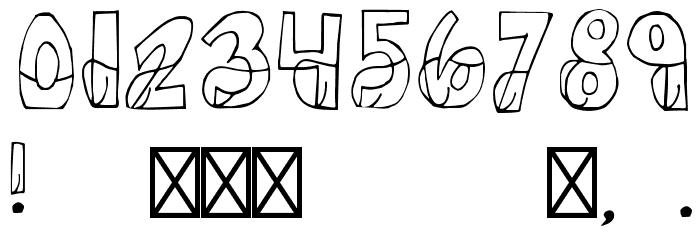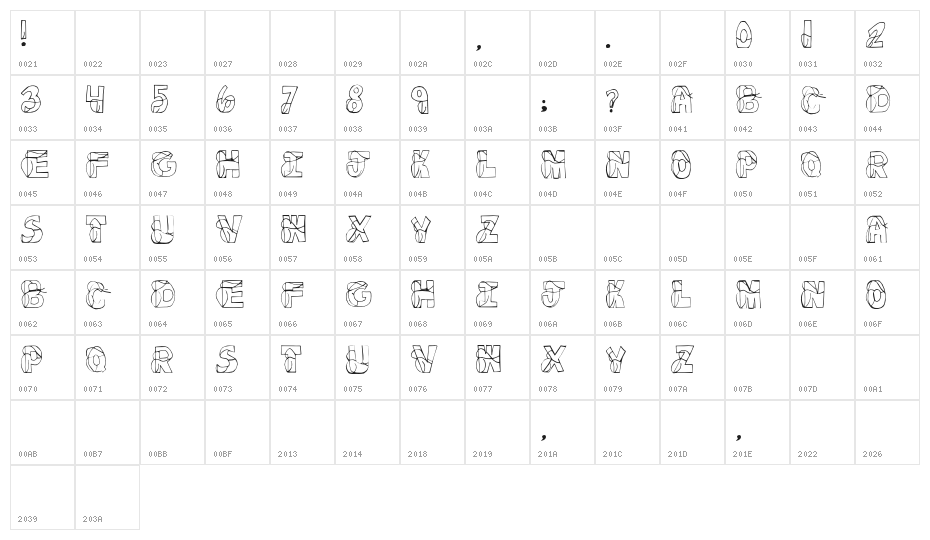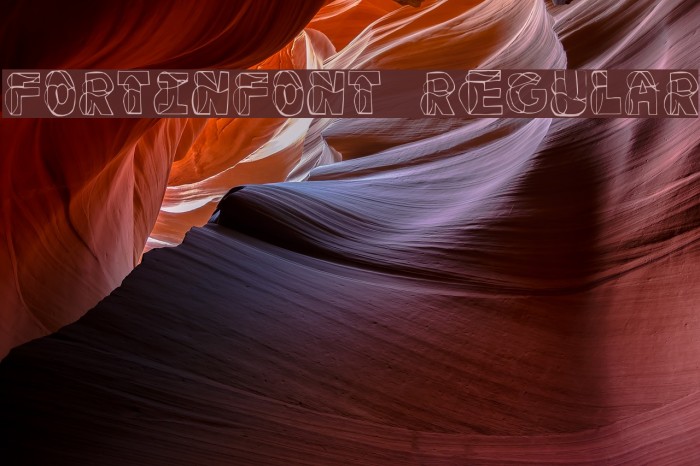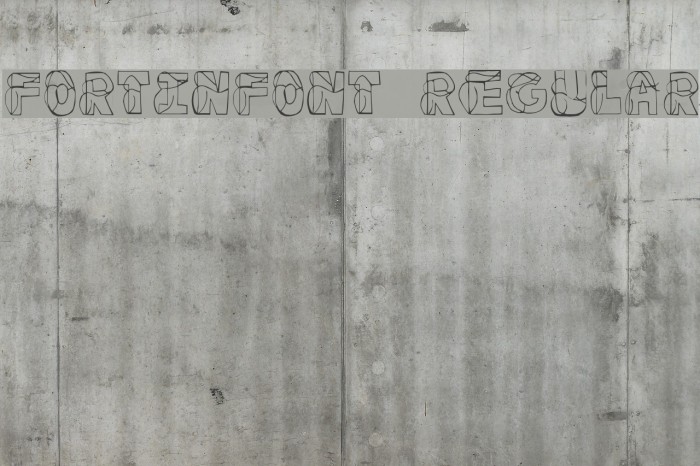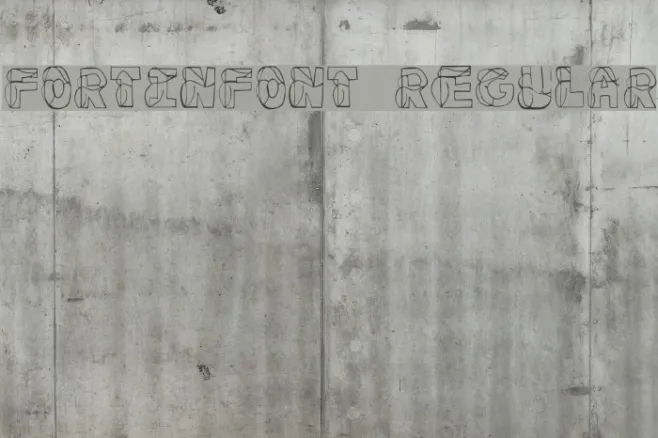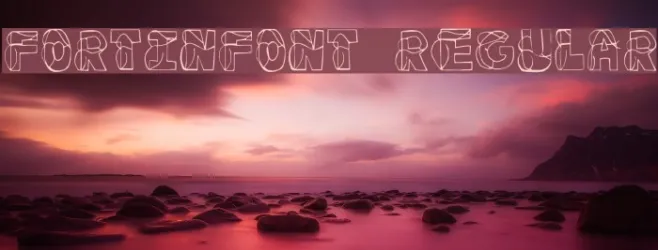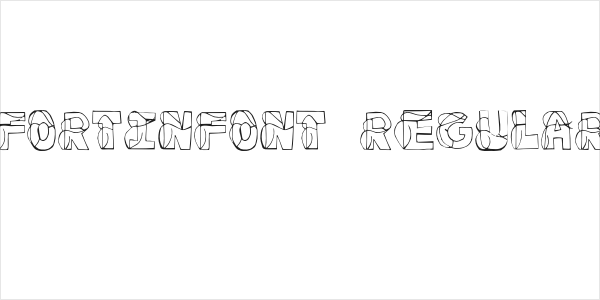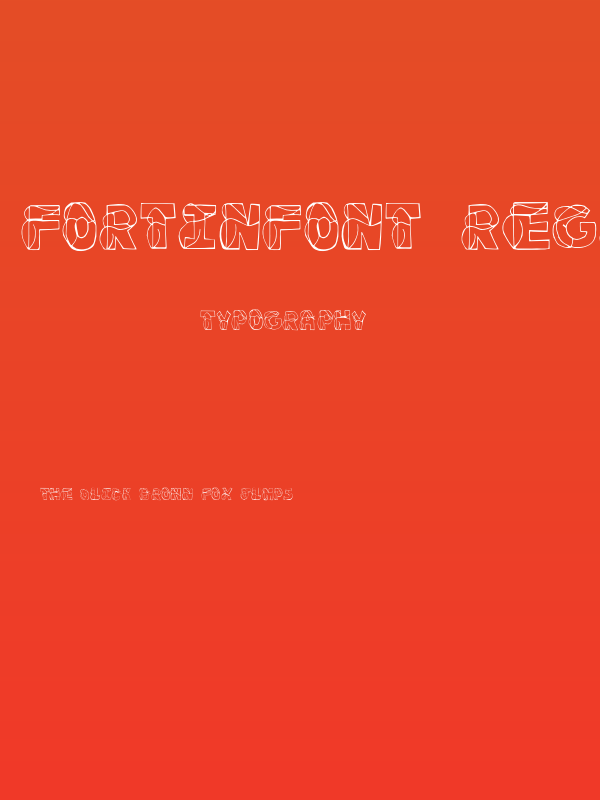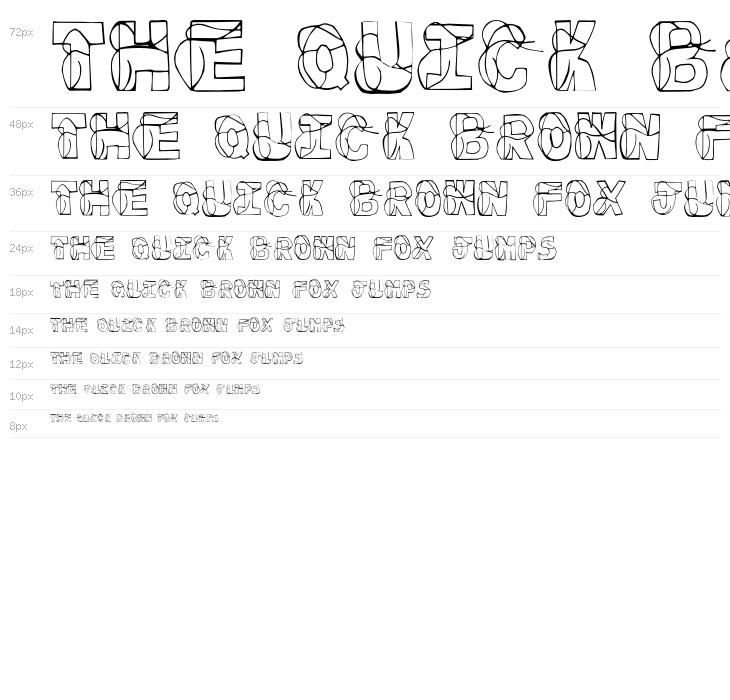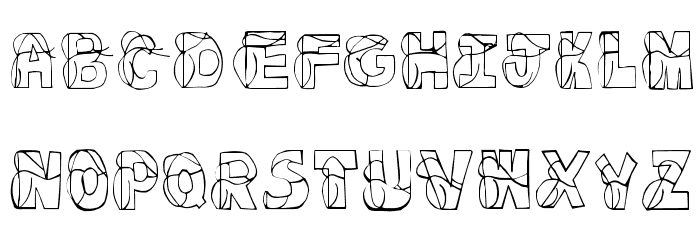
FortinFont-Regular Font
FortinFont-Regular Description
This font features a unique and artistic design with a geometric and abstract pattern within each character. The letters are bold and have a distinct outline, creating a striking visual effect. The style is decorative, with each character containing intricate line work that forms a cohesive pattern across the alphabet. The numbers and special characters follow the same design principles, ensuring consistency throughout the font. This font's artistic nature makes it stand out, ideal for creative projects that require a bold statement.
| Proposed Projects | Ideal for artistic posters, modern branding, unique invitations, and creative digital artwork. |